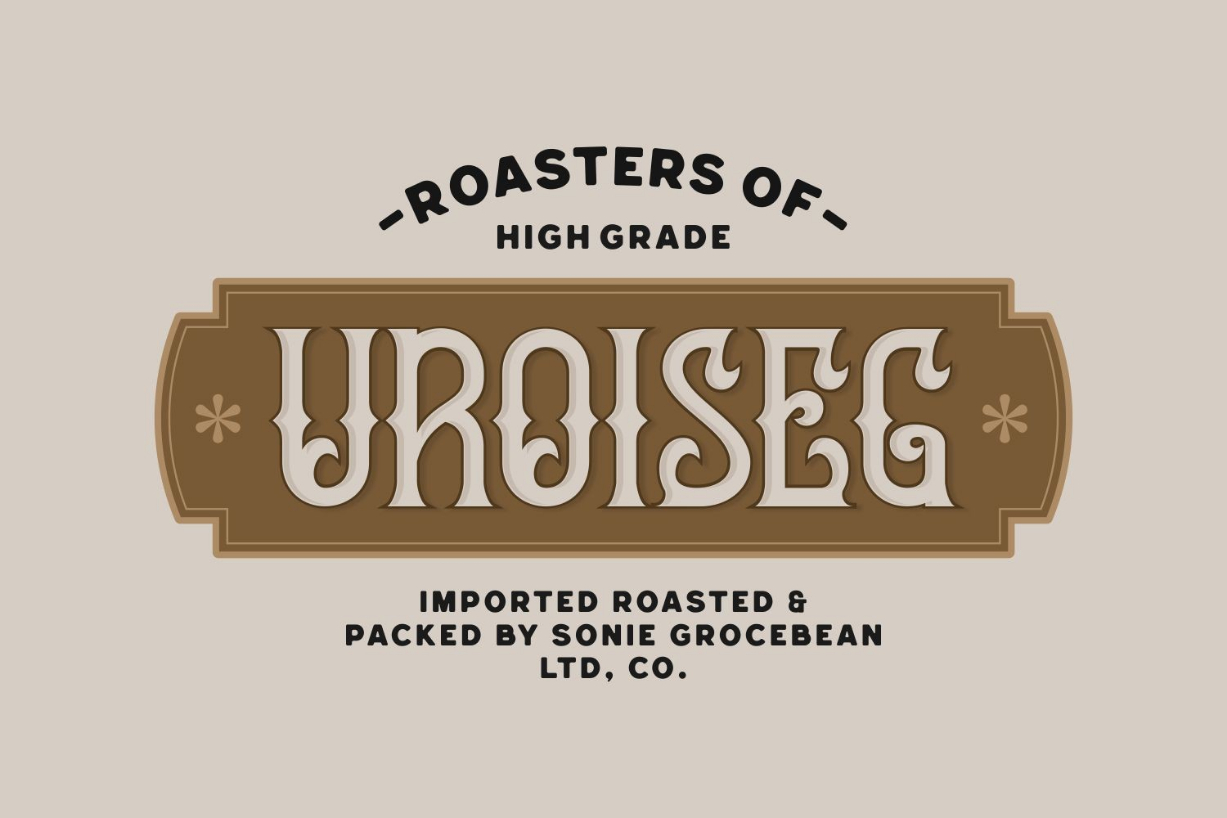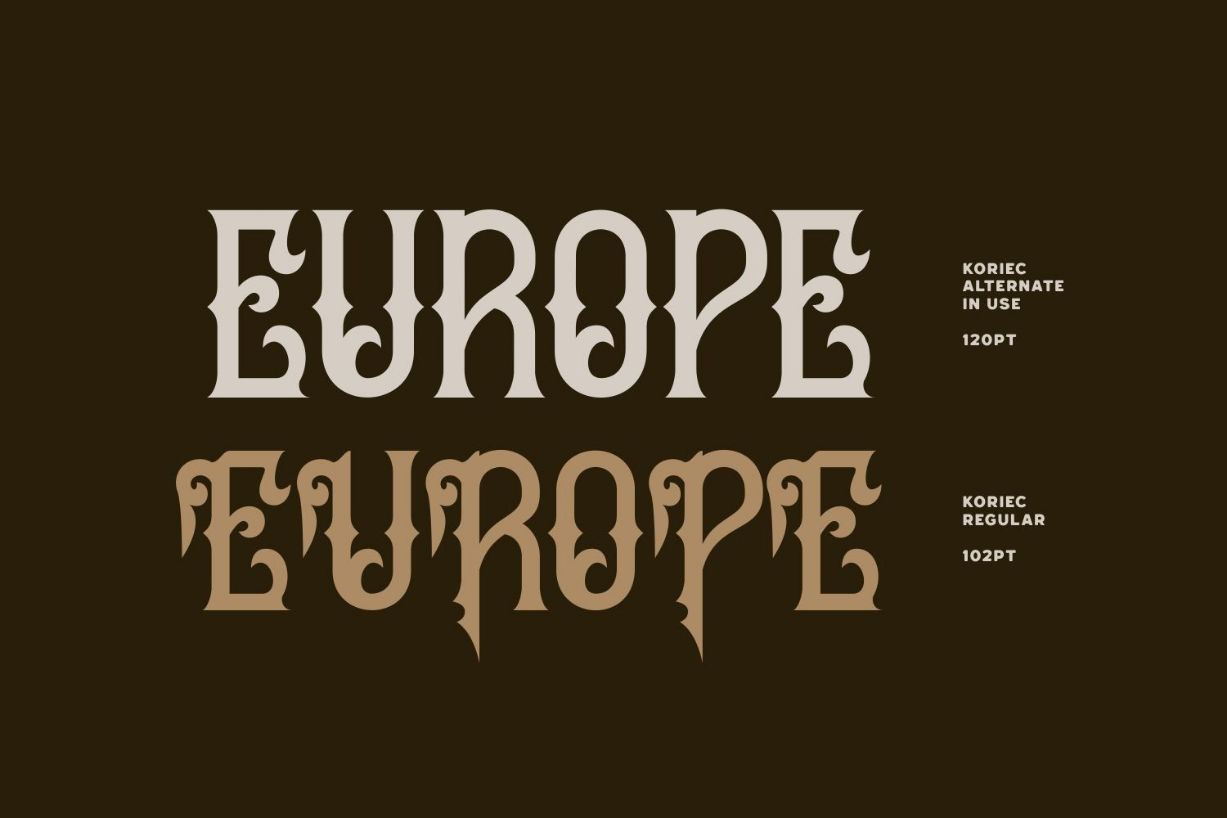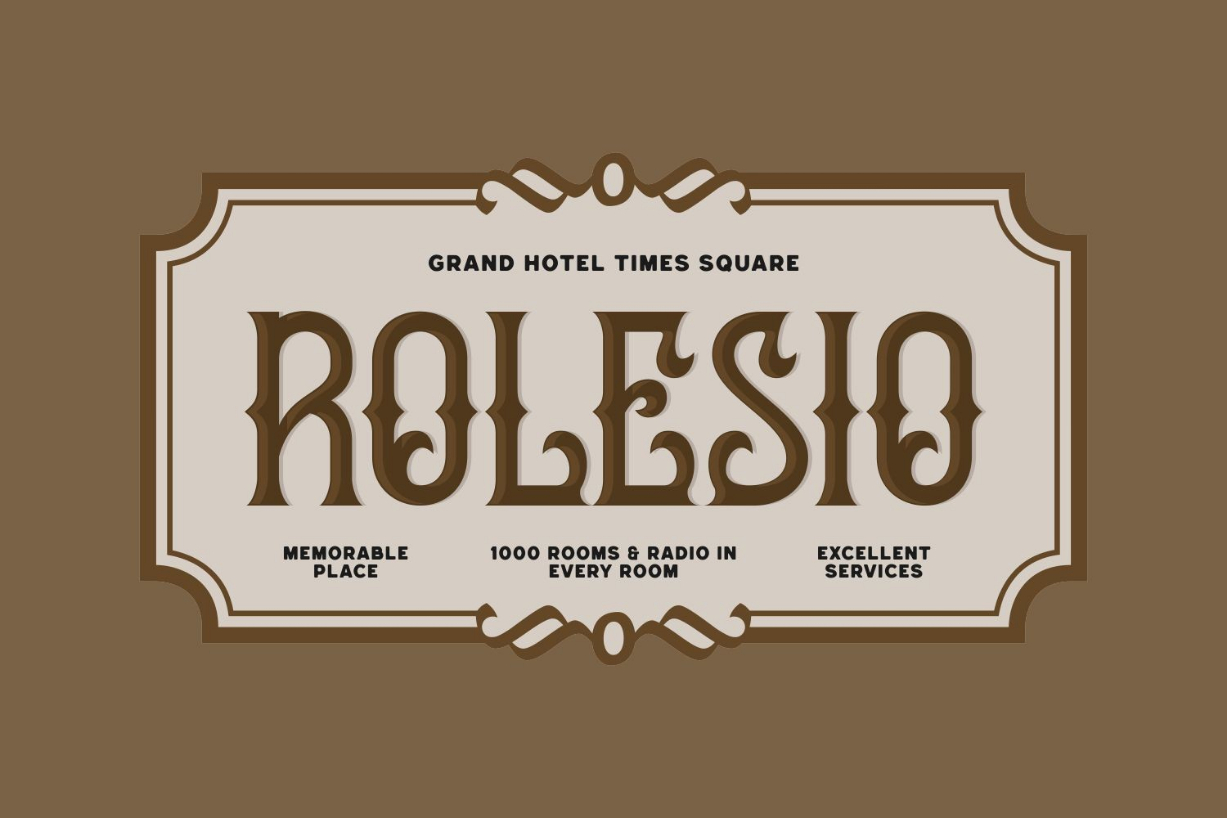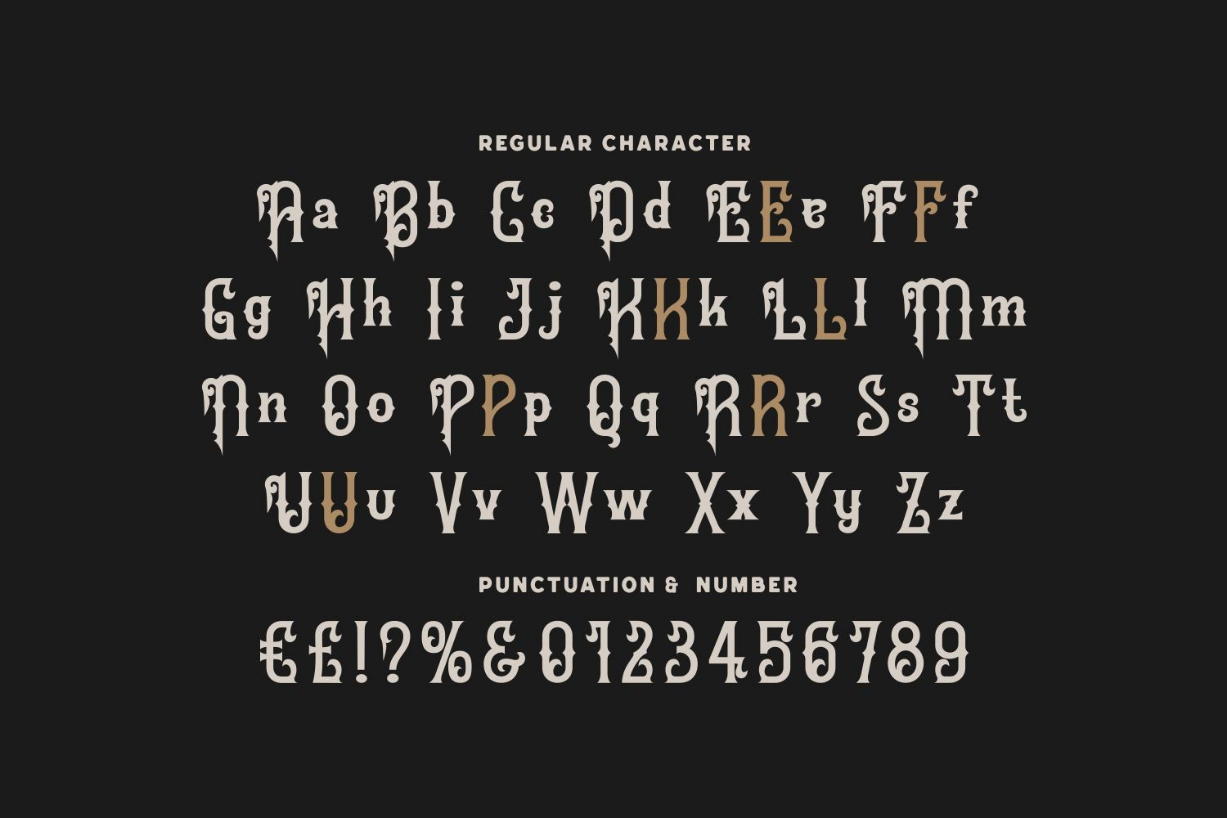
Koriec Font
About Koriec Font
Koriec is a splendid blackletter font that will impress with its stylish features. Use it for product packaging, branding, or other projects that need bold and daring typography!